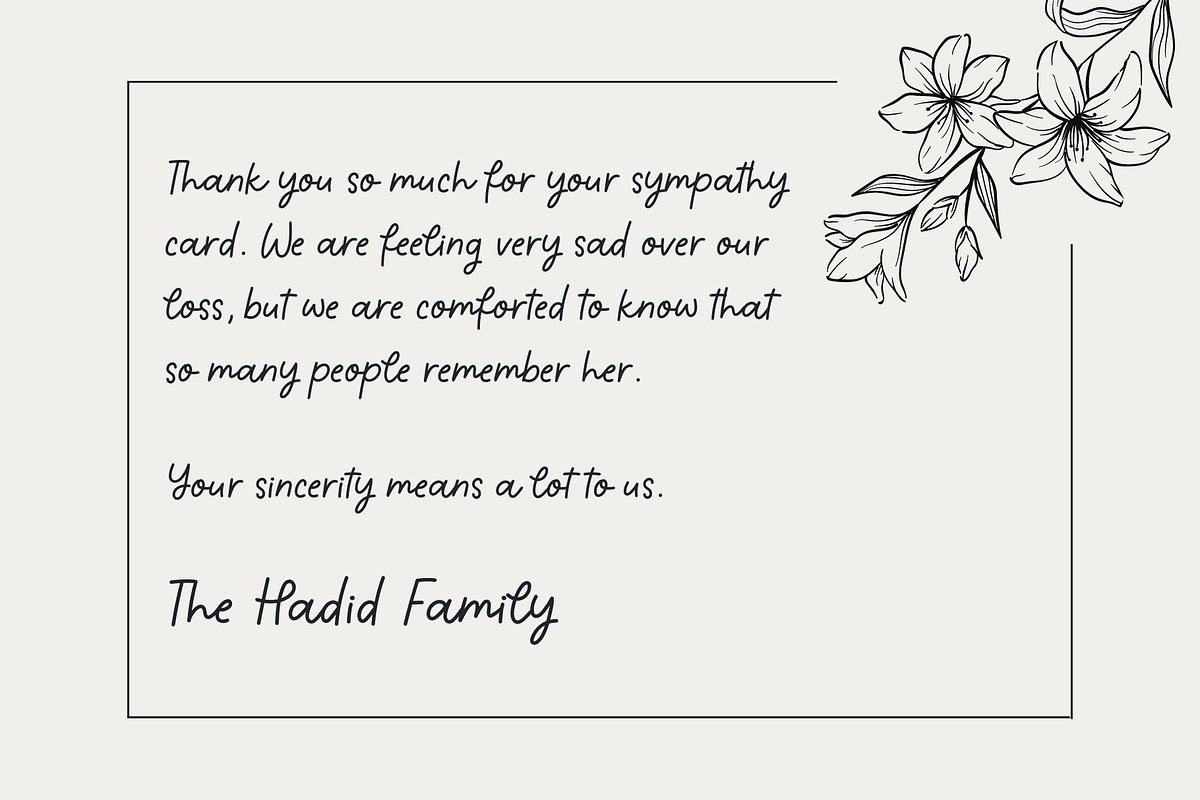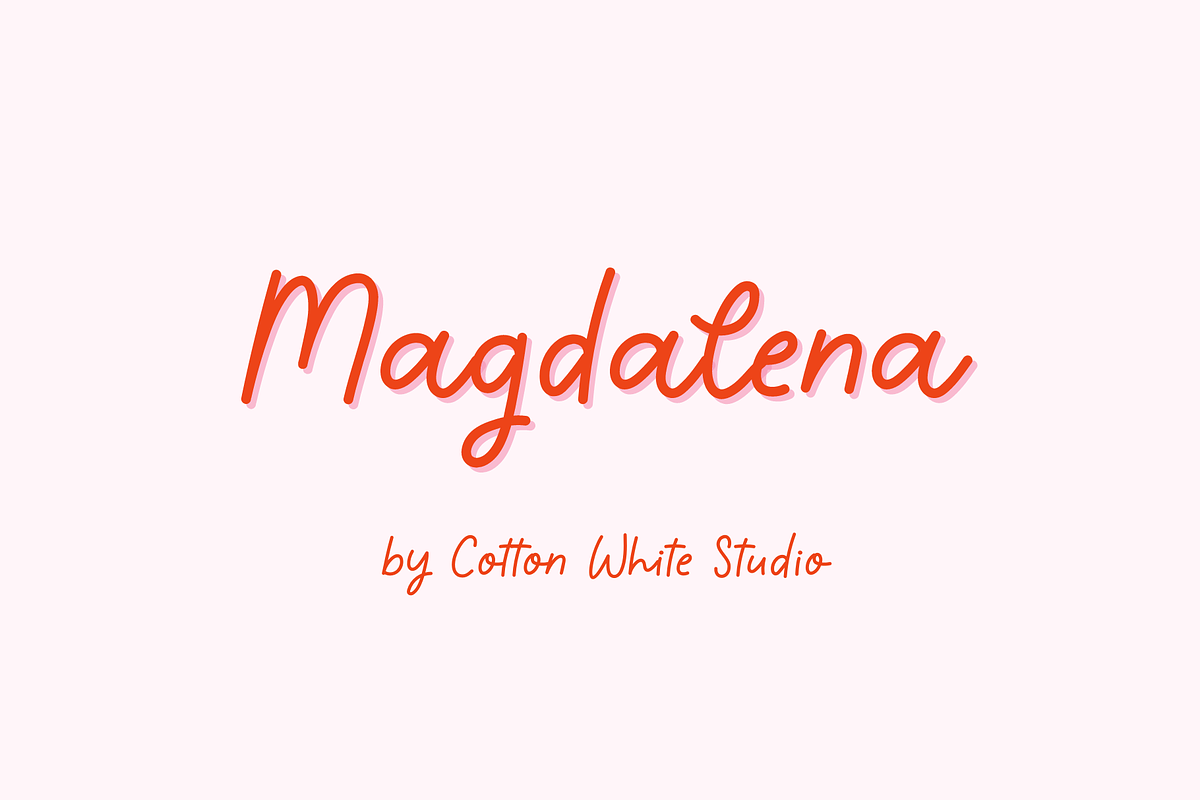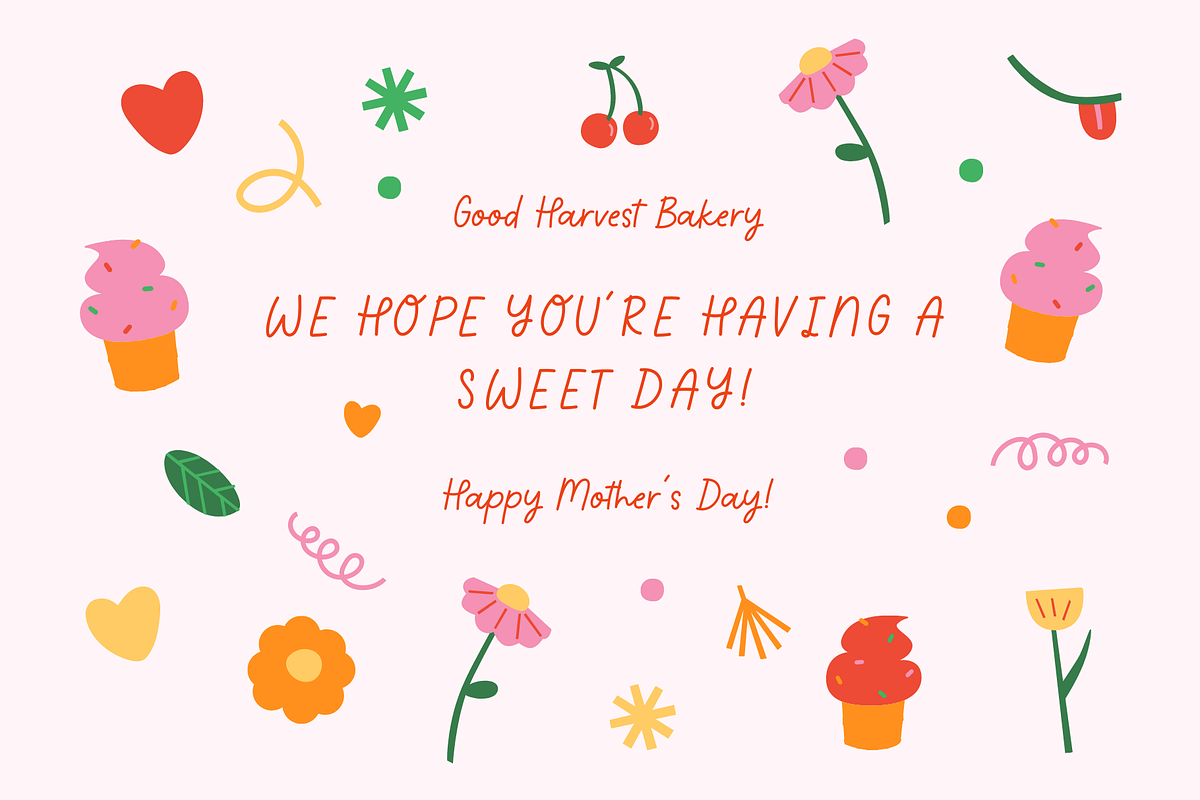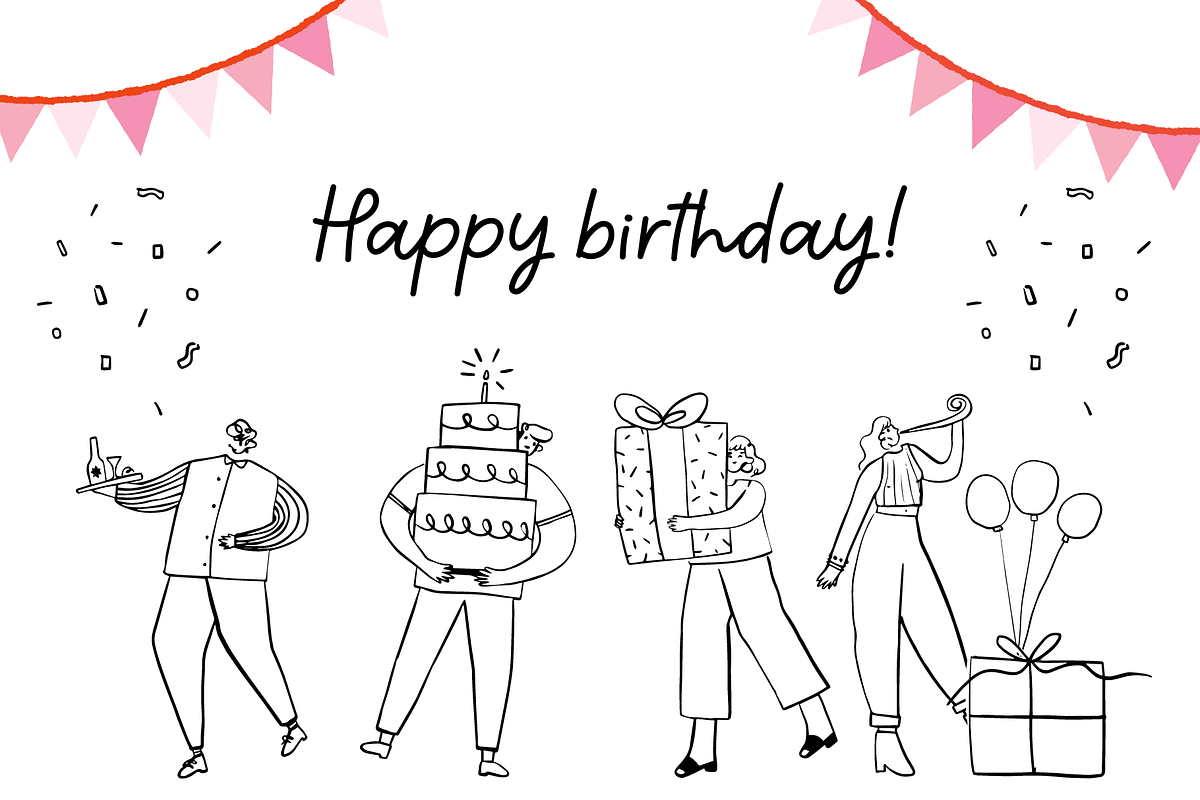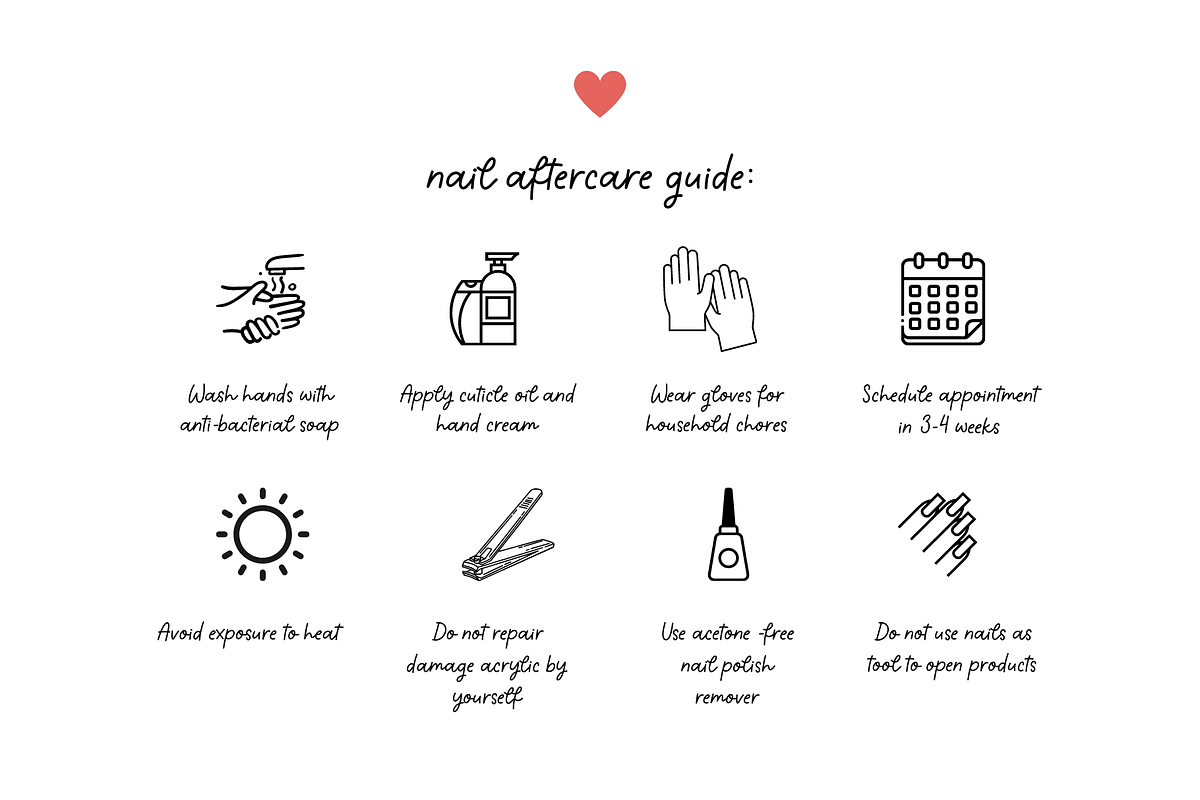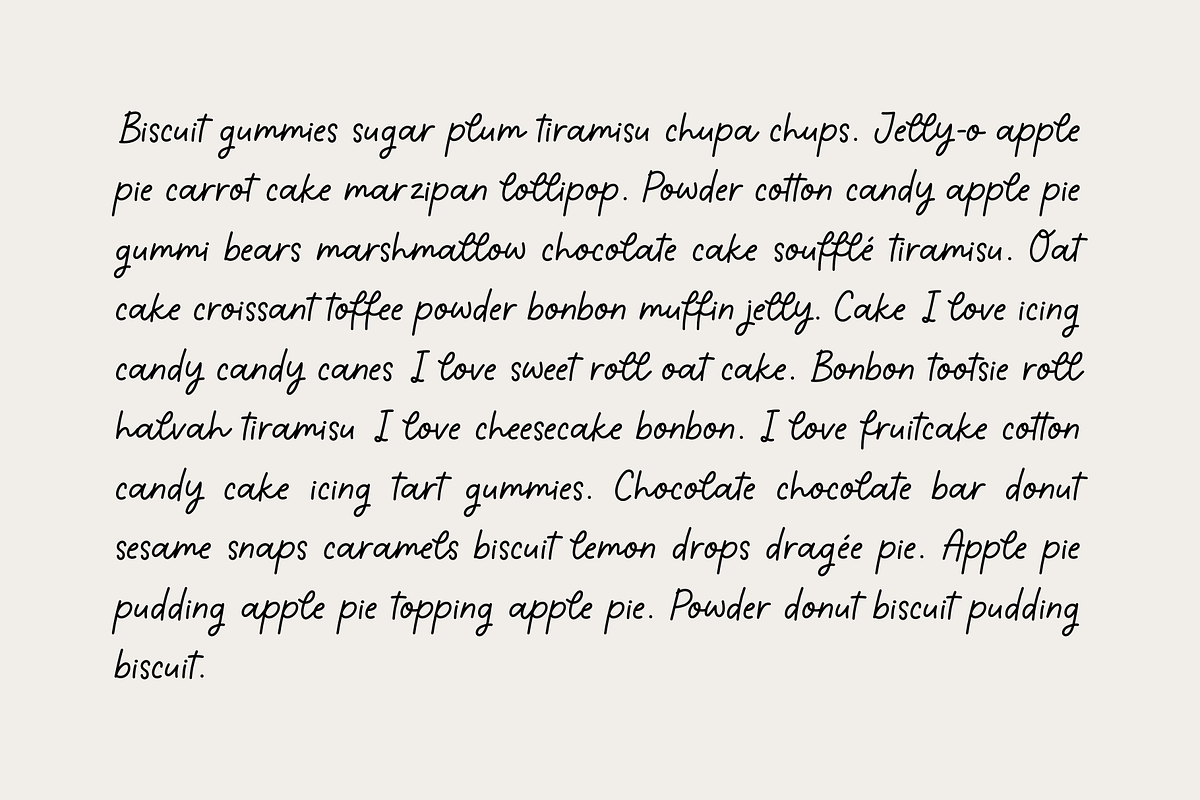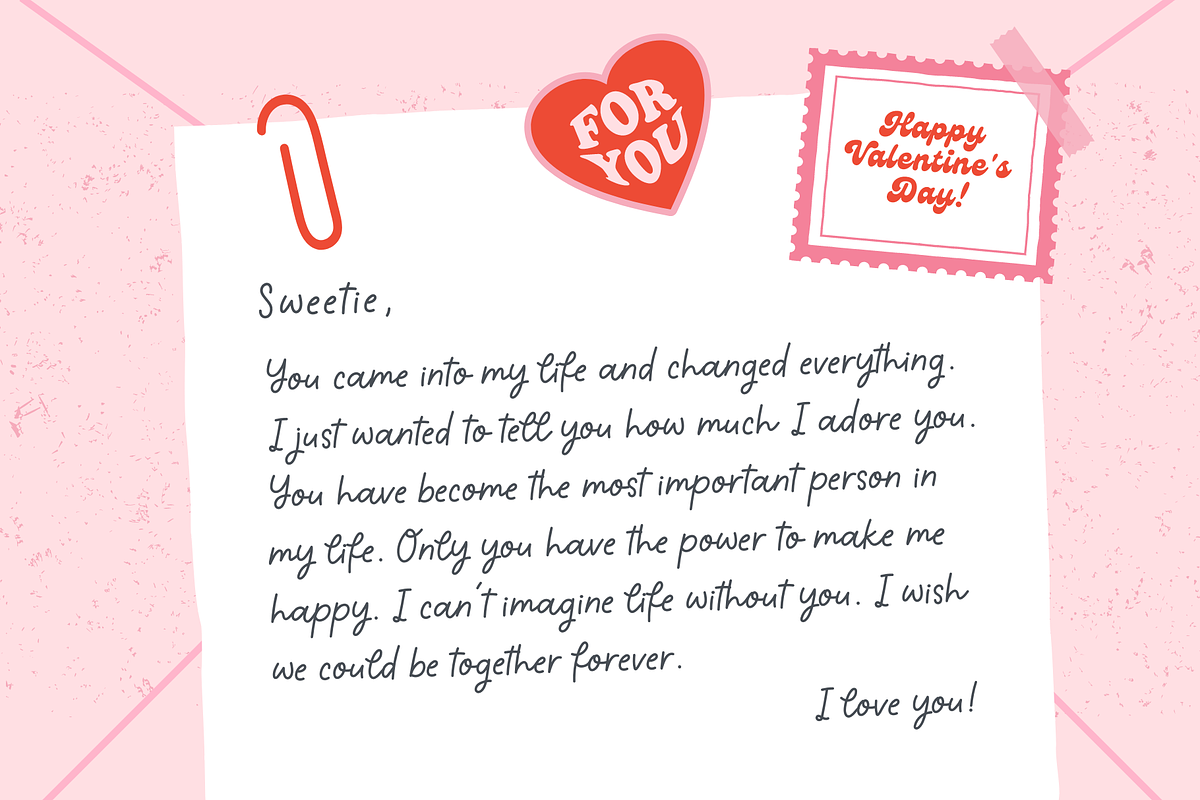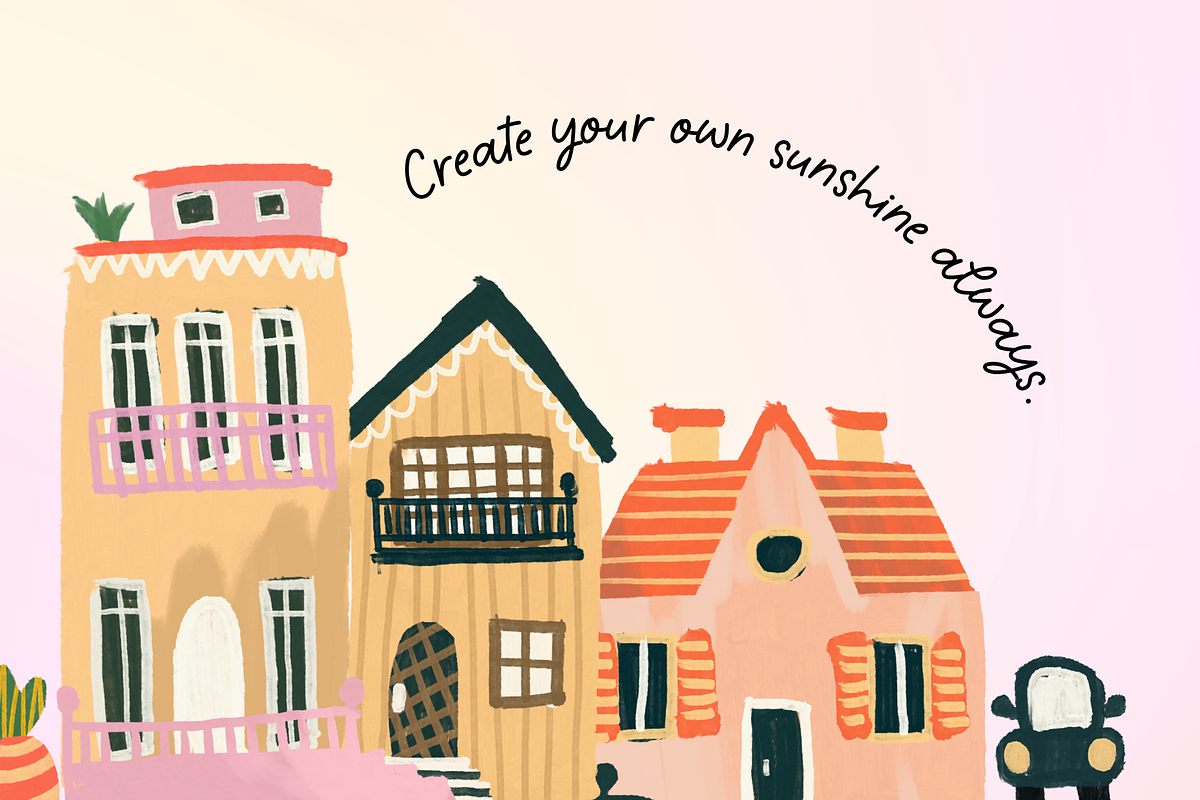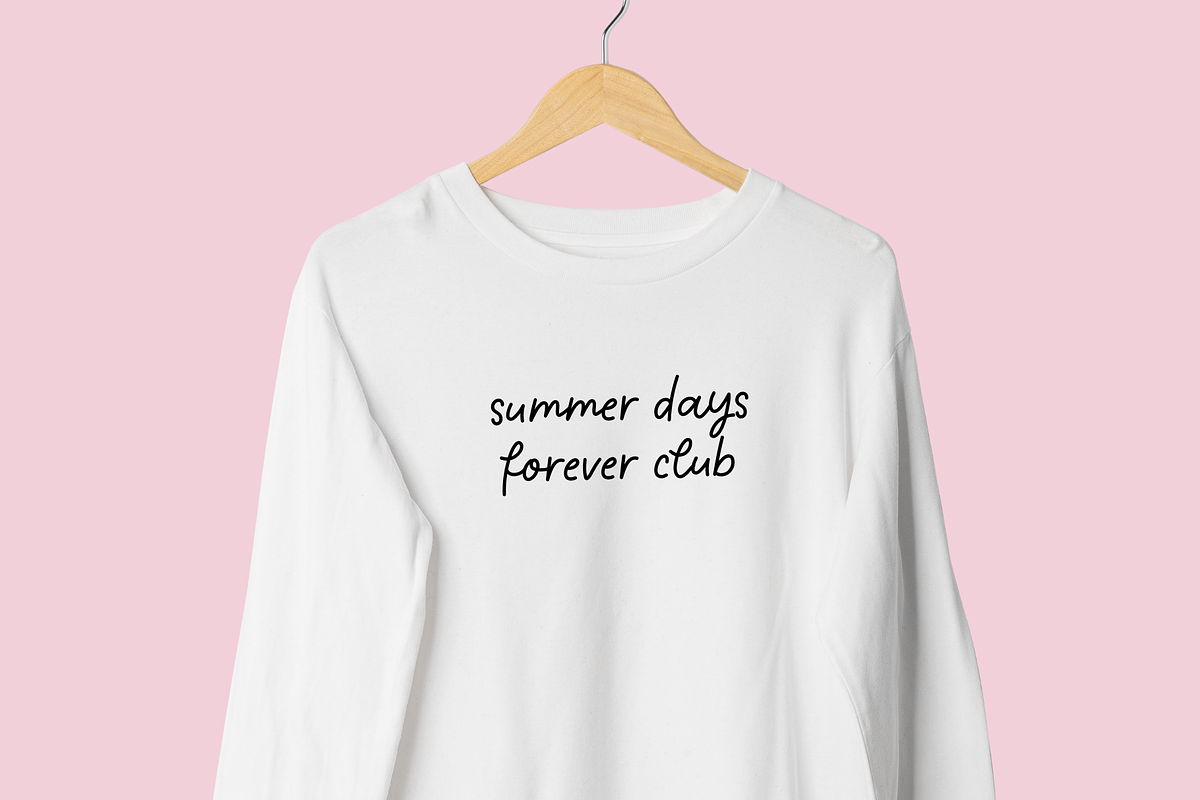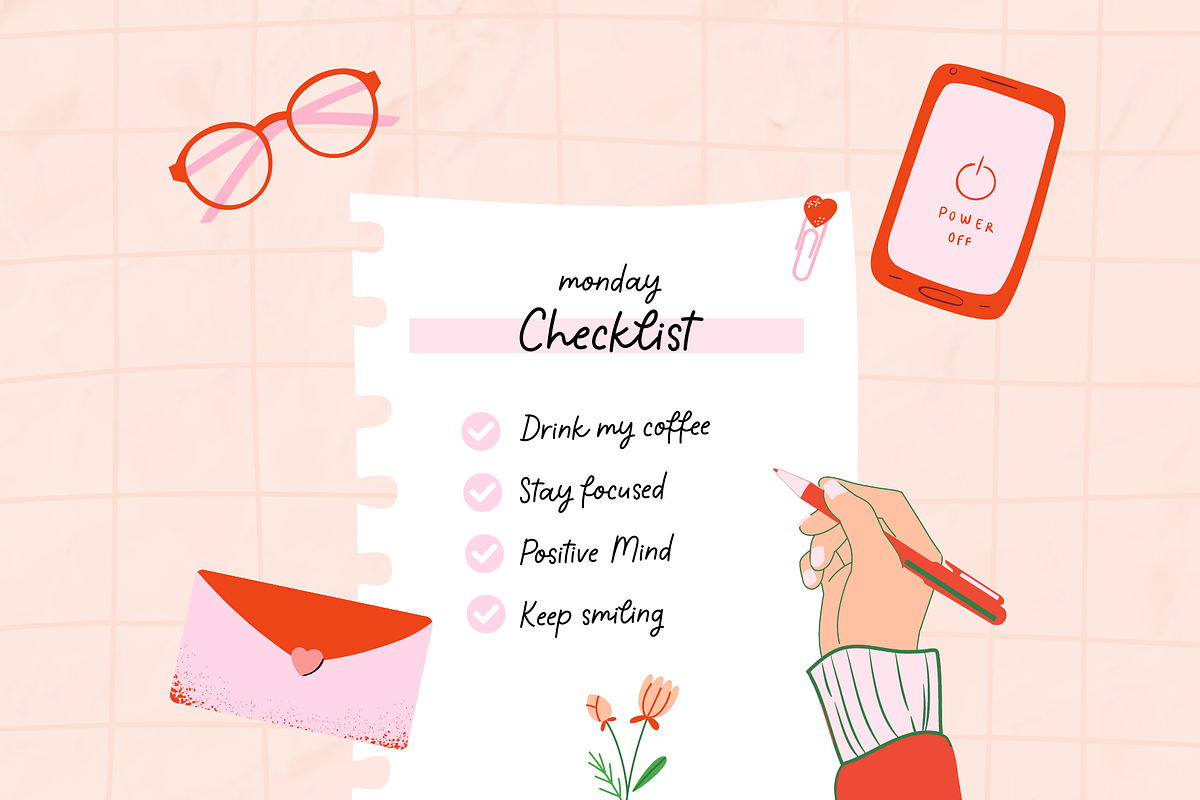
Magdalena
Add a beautiful, hand-crafted look to your work with this fabulously scripted font! A hand-drawn elegant font that will add a unique touch to your work. Perfect for branding, invitations, blogs, and planners. Adding an authentic hand-lettered touch to your projects couldn’t be easier!